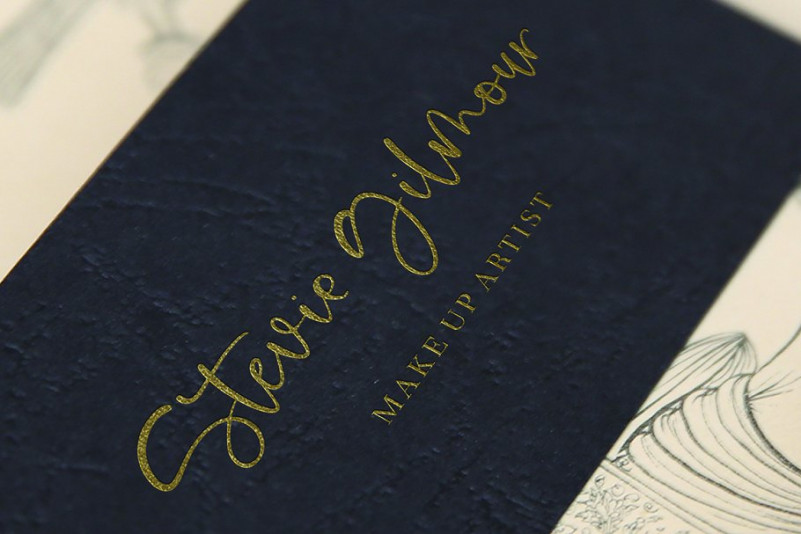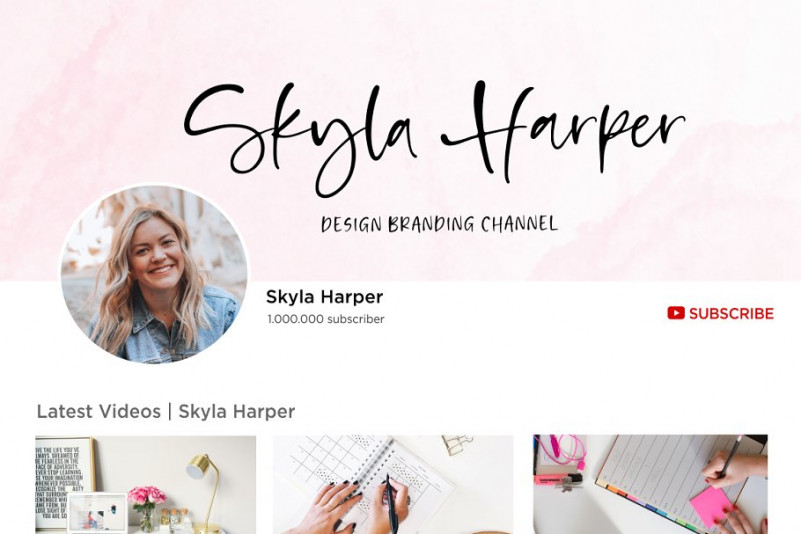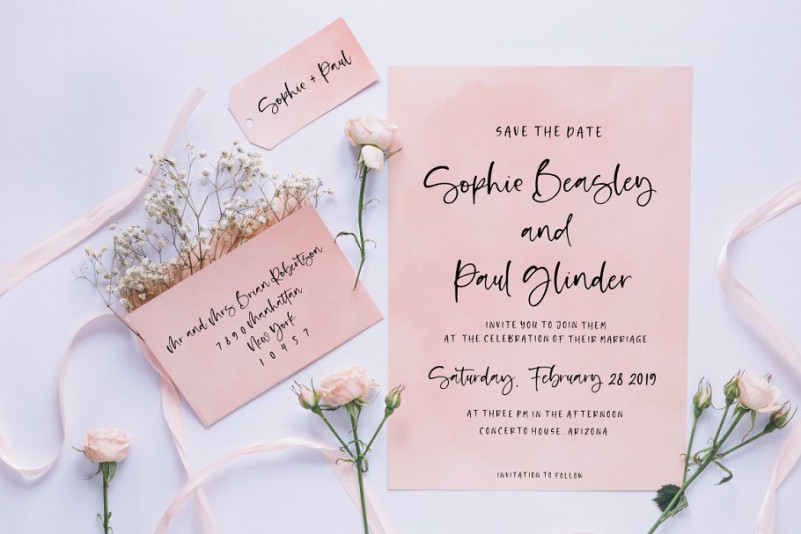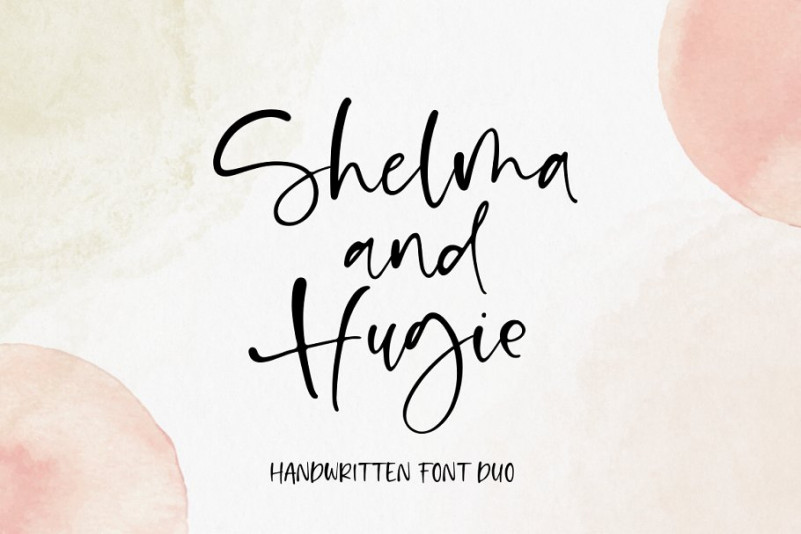
Shelma & Hugie Font Duo
Hi designer. This is a handwritten font duo, a modern calligraphy script font. It was designed as well as possible to enhance the beauty of your design. Introducing Shelma & Hugie Script. It’s a natural handwritten font, this font Is perfect for logo, invitation, stationery, wedding designs, social media posts, advertisements, product packaging, product designs, label, photography, watermark, special events or anything.
Shelma & Hugie Font Duo comes with full set of uppercase and lowercase letters, Contextual alternates in script version, multilingual symbols, numerals, punctuation.